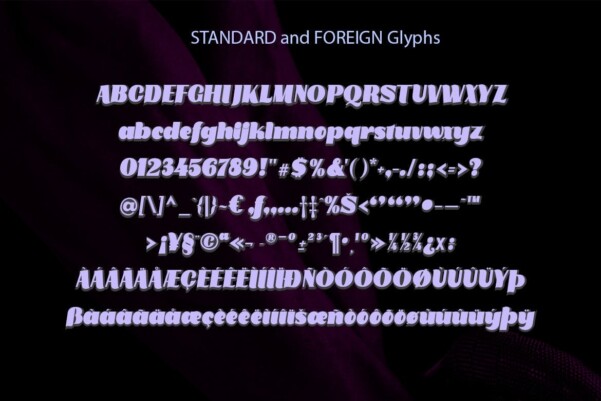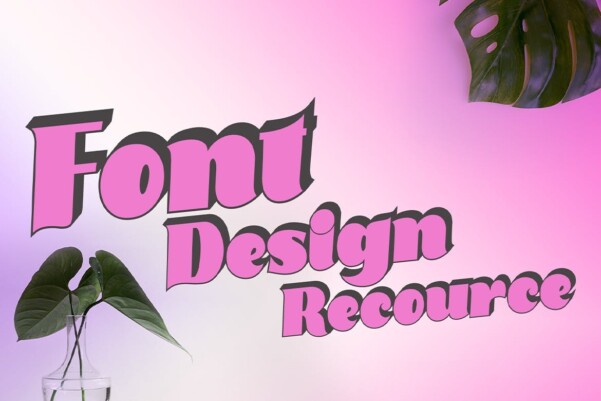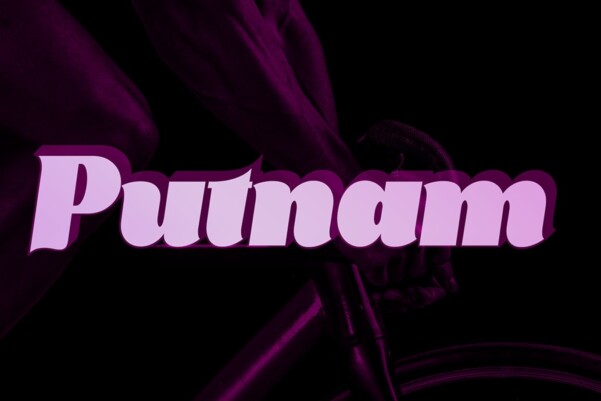
Putnam Font
Putnam Font – This is my font based on a handwritten draft in a modern era Serif style, largely with today’s retro typography designs.
Putnam also comes with Extruded. as a function to create an extrusion effect for this font.